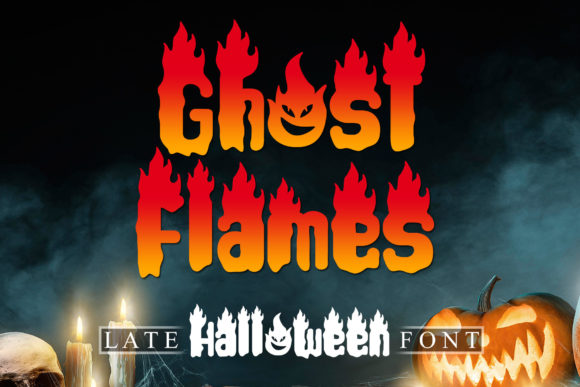
Don't let your creativity be trapped in the mundane! Unleash the spectral charm of Ghost Flames, a decorative font that dances with supernatural flair. Each letter is a haunting melody, an ethereal whisper etched in the shadowy embrace of Halloween. Let your designs flirt with the macabre, whether it's chilling posters, spine-tingling crafts, or T-shirts that scream spooky chic. Conjure unique wedding invitations adorned with the mystical allure of Ghost Flames. Imagine the gasps of awe as guests are greeted by a welcome sign that sets the tone for an unforgettable night dipped in enchantment.
With Ghost Flames by your side, your words will transcend the ordinary and morph into spectral wonders. Transform your designs into haunted masterpieces, invoking the very essence of Halloween's mystique. This font is no mere collection of letters; it's a gateway to a realm where creativity knows no bounds. Dare to embrace the eerie beauty of Ghost Flames, and let your imagination run wild amidst the whispering spirits of the night.